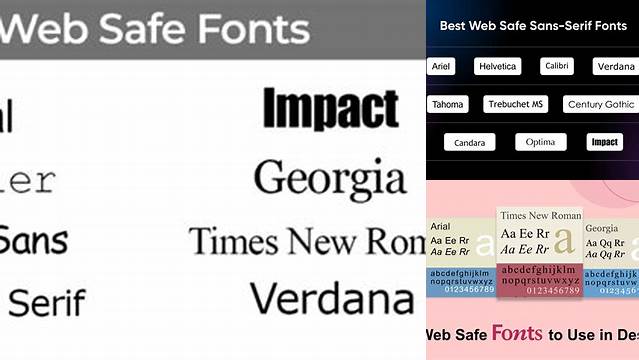
Web Safe Fonts: A Comprehensive Guide
1. Understanding Web Safe Fonts: The Basics
Hey guys! Let's dive into the world of web safe fonts. What exactly are they? Well, these are the fonts that are universally installed across almost all operating systems. Think of it like this: when a user visits your website, their computer already has these fonts, so your website will display exactly as you intended. This is crucial for maintaining the look and feel you've designed. Imagine spending hours perfecting your typography, only for it to be rendered differently on various devices – not cool, right? Web safe fonts ensure consistency and a smooth user experience. We're talking about fonts like Arial, Times New Roman, and Courier New – the classics that have been around forever. These fonts are pre-loaded on most systems, meaning they don't need to be downloaded by the user’s browser. This translates to faster loading times and a more reliable display. By using web safe fonts, you minimize the risk of font substitution, which can completely throw off your layout. Using web safe fonts helps designers ensure a consistent and reliable reading experience for every user, regardless of their device or operating system. In essence, web safe fonts offer a stable foundation for your design, ensuring that your message is delivered clearly and effectively to everyone who visits your site. If you're aiming for maximum accessibility and visual consistency, sticking to web safe fonts is a smart move.
2. The Importance of Font Consistency Across Browsers
Font consistency, guys, is super important when designing for the web. Why? Because different browsers interpret CSS and font declarations in their own quirky ways. Imagine designing a beautiful headline in Helvetica, only to have it show up as Arial on someone else's computer simply because they don't have Helvetica installed. That's where web safe fonts come to the rescue! These fonts are like the reliable friends that you know will always be there. By using them, you avoid those awkward font substitutions that can ruin your design. Ensuring font consistency across browsers isn't just about aesthetics; it's also about ensuring readability and maintaining your brand's visual identity. Think about it: if your brand uses a specific font to convey a certain feeling or message, you want that to be consistent across all touchpoints, including your website. Different fonts can evoke different emotions, and inconsistency can lead to a disjointed user experience. Moreover, inconsistent fonts can make your website look unprofessional, which can damage your credibility. By sticking to web safe fonts, you can create a cohesive and professional-looking website that delivers a consistent message to all visitors, no matter what browser they're using. This is especially crucial for businesses that rely on their online presence to attract and retain customers. In short, font consistency is a key element of good web design, and web safe fonts are your best bet for achieving it.
3. Top 10 Web Safe Fonts Every Designer Should Know
Okay, let's get into the nitty-gritty and talk about the top 10 web safe fonts that every designer should have in their toolkit. These fonts are the workhorses of the web, reliable and readily available on most systems. First up, we have Arial, a classic sans-serif font that's clean and readable. Then there's Helvetica, a similar but slightly more refined option. Times New Roman is the go-to serif font for body text, known for its traditional and formal appearance. Courier New is a monospace font that's perfect for displaying code or adding a retro touch. Verdana is another sans-serif font designed for readability on screens, making it a great choice for websites. Georgia is a serif font that's similar to Times New Roman but with a slightly more modern feel. Trebuchet MS is a sans-serif font that's a bit more playful and unique than Arial or Helvetica. Impact is a bold sans-serif font that's perfect for headlines and titles. Comic Sans MS (use with caution!) is a handwritten font that can add a touch of fun to your designs, but it's best used sparingly. Lastly, Andale Mono is another monospace font that's great for displaying code. These top 10 web safe fonts provide a solid foundation for any web design project. By mastering their usage, you can ensure that your designs look great on any device or browser.
4. Arial: The Ubiquitous Sans-Serif Font
Arial, guys, is like the reliable friend that's always there when you need it. This ubiquitous sans-serif font is installed on virtually every computer, making it a web safe superstar. It's clean, it's readable, and it gets the job done without any fuss. Arial is often used as a default font in many applications, which speaks to its widespread availability and acceptance. While it might not be the most exciting font out there, its simplicity and legibility make it a go-to choice for body text, headlines, and even UI elements. One of the great things about Arial is its versatility. It works well in a variety of contexts, from formal documents to casual websites. It's also available in a range of weights, allowing you to create visual hierarchy and add emphasis where needed. However, some designers find Arial a bit bland and generic, preferring more distinctive fonts for their projects. But if you're looking for a font that's guaranteed to display correctly on any device, Arial is a safe bet. It's the workhorse of the web safe font family, and it deserves a place in every designer's toolkit. In summary, Arial is a font that's hard to go wrong with, thanks to its widespread availability and clean design. Whether you love it or hate it, it's a font that you'll likely encounter time and time again in the world of web design.
5. Times New Roman: The Classic Serif Choice
Times New Roman is that classic serif font that everyone recognizes. It's like the little black dress of typography – always in style and appropriate for almost any occasion. This font has a long history, dating back to its creation for The Times newspaper in 1931. Its traditional and formal appearance makes it a popular choice for body text in books, newspapers, and websites. While some designers might find Times New Roman a bit old-fashioned, its readability and widespread availability make it a web safe staple. Times New Roman is known for its high contrast and sharp serifs, which contribute to its legibility. It's also available in a variety of weights and styles, including bold, italic, and bold italic, giving you plenty of options for creating visual hierarchy and adding emphasis. However, it's worth noting that Times New Roman can sometimes appear a bit cramped on screens, especially at smaller sizes. Therefore, it's important to use it judiciously and consider adjusting the line height and letter spacing to improve readability. Despite its age, Times New Roman remains a reliable and versatile font choice for web design. If you're looking for a font that conveys a sense of tradition and authority, Times New Roman is a great option. It's a font that has stood the test of time, and it's sure to continue to be a web safe favorite for years to come.
6. Courier New: The Monospace Option for Code Display
Courier New is your go-to monospace font when you need to display code or add a retro vibe to your design. What's a monospace font, you ask? It's a font where every character takes up the same amount of horizontal space, making it ideal for aligning columns of text and displaying code snippets. Courier New is a web safe font, so you can be confident that it will render correctly on most devices. It's simple, it's clean, and it gets the job done without any distractions. While it might not be the most visually exciting font out there, its functionality makes it a valuable tool for web developers and designers alike. One of the main advantages of Courier New is its readability. The uniform character width makes it easy to scan code and identify errors. It's also a great choice for displaying text in a fixed-width container, as it prevents text from wrapping unexpectedly. However, Courier New is not the best choice for body text, as its monospace nature can make it tiring to read for long periods. But for displaying code, adding a touch of nostalgia, or creating a technical document, Courier New is a solid option. It's a font that's been around for a long time, and it's still widely used today. In summary, Courier New is a reliable and functional font that's perfect for code display and other specialized applications. If you're working with code or need a font that offers precise alignment, Courier New is a great choice.
7. Verdana: Optimized for On-Screen Readability
Verdana is a sans-serif font that was specifically designed for on-screen readability. This makes it an excellent choice for websites, especially those with a lot of text. Verdana has a larger x-height than many other fonts, which means that the lowercase letters are taller relative to the uppercase letters. This makes it easier to distinguish between characters and improves readability, especially at smaller sizes. Verdana is also a web safe font, so you can be confident that it will render correctly on most devices. It's clean, it's modern, and it's designed to be easy on the eyes. One of the great things about Verdana is its versatility. It works well for both body text and headlines, and it's available in a variety of weights, including bold and italic. However, some designers find Verdana a bit too wide, which can make it take up more space than other fonts. But if readability is your top priority, Verdana is hard to beat. It's a font that was designed with the user in mind, and it shows. In summary, Verdana is an excellent choice for websites that prioritize readability. Its larger x-height and clean design make it easy to read on screens of all sizes. If you want to ensure that your website is accessible and easy to use, Verdana is a web safe font that you should definitely consider.
8. Georgia: A Serif Font with a Modern Touch
Georgia is a serif font that brings a modern twist to the classic serif style. It's similar to Times New Roman but with a slightly more contemporary feel. Georgia was designed specifically for on-screen readability, which makes it a great choice for websites. It has a larger x-height and more generous spacing than Times New Roman, which improves legibility, especially at smaller sizes. Georgia is also a web safe font, so you can be confident that it will render correctly on most devices. It's elegant, it's readable, and it adds a touch of sophistication to any design. One of the great things about Georgia is its versatility. It works well for both body text and headlines, and it's available in a variety of weights, including bold and italic. However, some designers find Georgia a bit too similar to Times New Roman, preferring more distinctive fonts for their projects. But if you're looking for a serif font that's both classic and modern, Georgia is a great option. It's a font that has stood the test of time, and it's sure to continue to be a web safe favorite for years to come. In summary, Georgia is a reliable and elegant serif font that's perfect for websites that want to convey a sense of sophistication and readability. If you're looking for a font that's both classic and modern, Georgia is a great choice.
9. Trebuchet MS: A Playful and Unique Sans-Serif
Trebuchet MS is a sans-serif font that's a bit more playful and unique than your average sans-serif. It has a distinct personality that sets it apart from fonts like Arial and Helvetica. Trebuchet MS was designed to be readable on screens, which makes it a good choice for websites. It has a slightly condensed design, which allows you to fit more text into a smaller space. Trebuchet MS is also a web safe font, so you can be confident that it will render correctly on most devices. It's friendly, it's approachable, and it adds a touch of personality to any design. One of the great things about Trebuchet MS is its versatility. It works well for both headlines and body text, although some designers find it a bit too informal for formal documents. It's available in a variety of weights, including bold and italic. However, some designers find Trebuchet MS a bit dated, preferring more modern sans-serif fonts for their projects. But if you're looking for a font that's both readable and unique, Trebuchet MS is a great option. It's a font that can add a touch of personality to your website without sacrificing readability. In summary, Trebuchet MS is a fun and versatile sans-serif font that's perfect for websites that want to stand out from the crowd. If you're looking for a font that's both readable and unique, Trebuchet MS is a great choice.
10. Impact: The Bold Choice for Headlines
Impact is that bold and attention-grabbing sans-serif font that's perfect for headlines and titles. When you need to make a statement, Impact is the font to use. Its thick strokes and condensed design make it stand out from the crowd. Impact is also a web safe font, so you can be confident that it will render correctly on most devices. It's strong, it's confident, and it demands attention. One of the great things about Impact is its ability to grab the reader's attention. It's perfect for headlines, banners, and other elements that need to stand out. However, Impact is not a good choice for body text, as its condensed design can make it difficult to read for long periods. It's available in only one weight, which limits its versatility. However, if you need a font that's bold and attention-grabbing, Impact is the perfect choice. It's a font that's been around for a long time, and it's still widely used today. In summary, Impact is a powerful and attention-grabbing sans-serif font that's perfect for headlines and titles. If you need to make a statement, Impact is the font to use.
11. Comic Sans MS: Use with Caution!
Alright guys, let's talk about Comic Sans MS. This font is like that one friend who's always trying to be funny but sometimes misses the mark. It's a handwritten font that can add a touch of fun to your designs, but it's best used sparingly and with a lot of caution. Comic Sans MS is a web safe font, so you can be confident that it will render correctly on most devices. However, its informal and playful design makes it inappropriate for many situations. Comic Sans MS is often criticized for being unprofessional and childish. It's generally not a good choice for formal documents, business websites, or anything that needs to convey a sense of authority. However, it can be appropriate for children's websites, party invitations, or other lighthearted designs. One of the main problems with Comic Sans MS is its overuse. It's been used so many times in inappropriate contexts that it's become a bit of a joke. However, if used correctly, it can add a touch of whimsy to your designs. In summary, Comic Sans MS is a font that should be used with extreme caution. It's a web safe font, but its informal design makes it inappropriate for many situations. Use it sparingly and only when it's truly appropriate for the context.
12. Andale Mono: Another Monospace Option
Andale Mono is another reliable monospace font that's great for displaying code or creating a technical document. Like Courier New, Andale Mono has a fixed-width design, which means that every character takes up the same amount of horizontal space. This makes it easy to align columns of text and display code snippets. Andale Mono is also a web safe font, so you can be confident that it will render correctly on most devices. It's simple, it's clean, and it gets the job done without any fuss. One of the main advantages of Andale Mono is its readability. The uniform character width makes it easy to scan code and identify errors. It's also a good choice for displaying text in a fixed-width container, as it prevents text from wrapping unexpectedly. However, Andale Mono is not the best choice for body text, as its monospace nature can make it tiring to read for long periods. But for displaying code, creating technical documentation, or adding a touch of retro flair, Andale Mono is a solid option. In summary, Andale Mono is a reliable and functional font that's perfect for code display and other specialized applications. If you're working with code or need a font that offers precise alignment, Andale Mono is a great choice.
13. Combining Web Safe Fonts for Visual Harmony
Creating visual harmony on your website involves more than just picking a single font. It's about carefully combining different web safe fonts to create a cohesive and balanced design. The key is to choose fonts that complement each other and work well together. For example, you might pair a sans-serif font like Arial with a serif font like Georgia. This can create a nice contrast and make your website more visually interesting. When combining web safe fonts, it's important to consider the hierarchy of your content. Use different fonts for headlines, subheadings, and body text to create a clear visual structure. You can also use different font weights and styles to add emphasis and guide the reader's eye. Another important tip is to limit the number of fonts you use on your website. Using too many fonts can make your design look cluttered and unprofessional. A good rule of thumb is to stick to two or three fonts at most. Finally, always test your font combinations on different devices and browsers to ensure that they look good across the board. In summary, combining web safe fonts is an art that requires careful consideration and attention to detail. By choosing fonts that complement each other and create a clear visual hierarchy, you can create a website that's both visually appealing and easy to read.
14. Web Safe Fonts and SEO: What’s the Connection?
Okay, let's talk about how web safe fonts and SEO are related. You might be thinking,